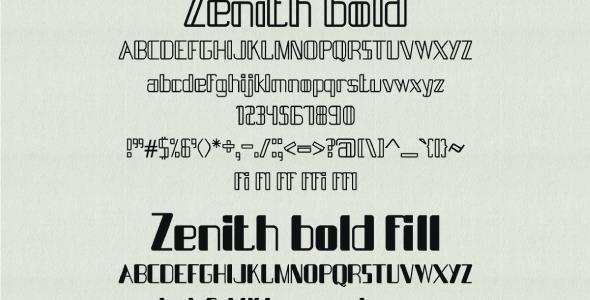
Zenith typeface
Zenith is a rounded, modern sans-serif typeface. It was designed to suit many design purposes: logo design, flyers, book covers, titling and many more. Comes in 6 weights – regular, regular fill, bold, bold fill, light, light fill – OTF format and WOFF for ewb format.